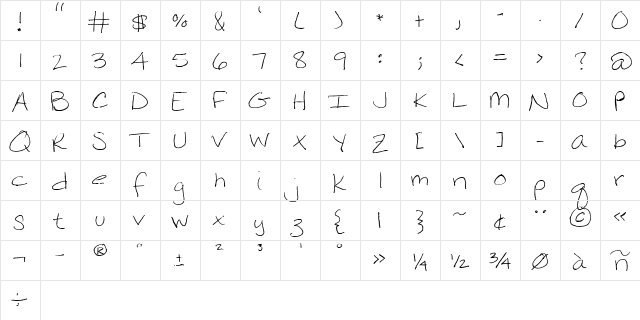
FG Felicia Regular Font Preview
FG Felicia Regular
FG Felicia Regular Font Details
| Foundry | Font Garden |
| Designer | Font Garden |
Design Context for FG Felicia Typeface
FG Felicia takes a measured approach to typography — its balanced proportions and neutral character make it a reliable workhorse for both digital and print work.